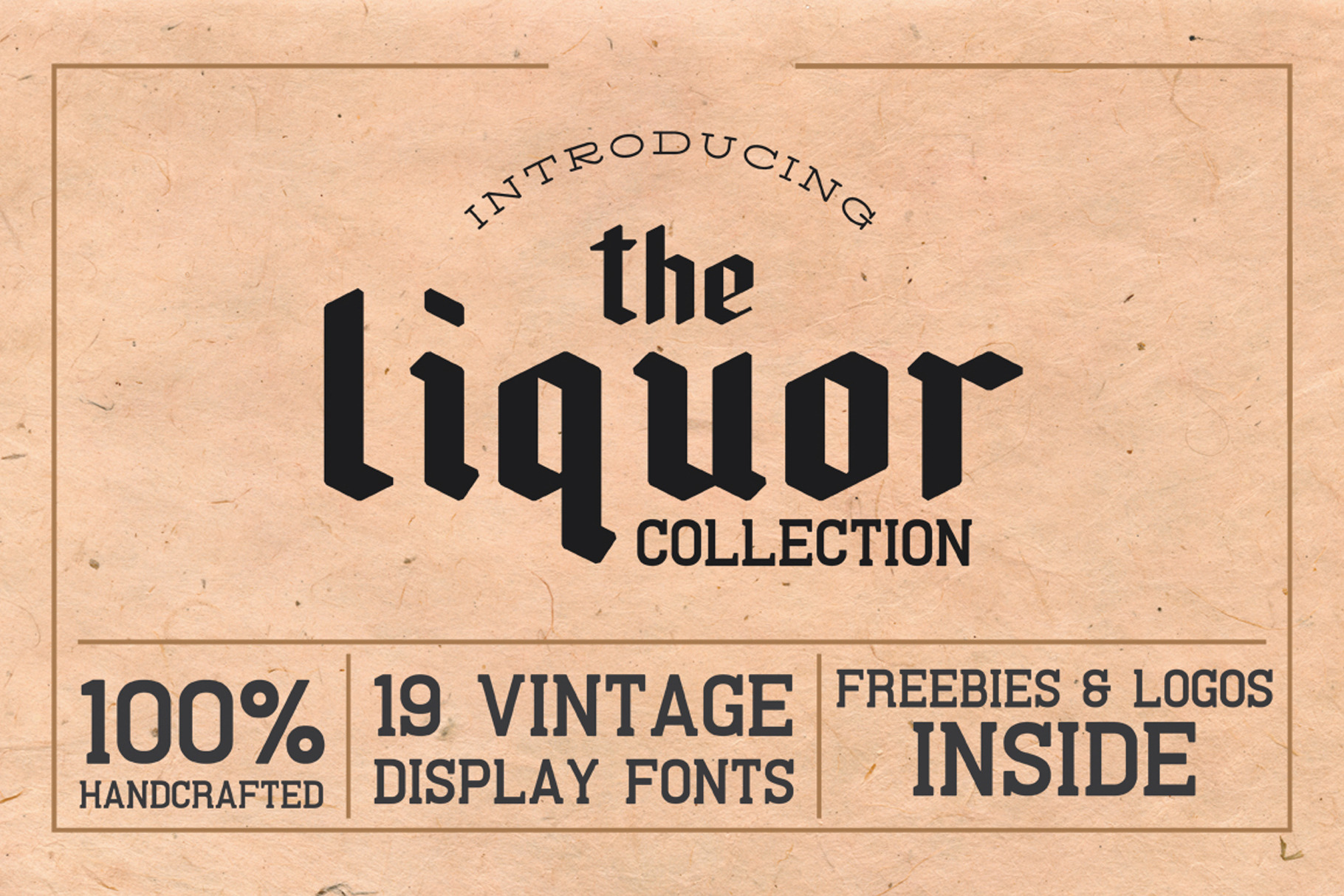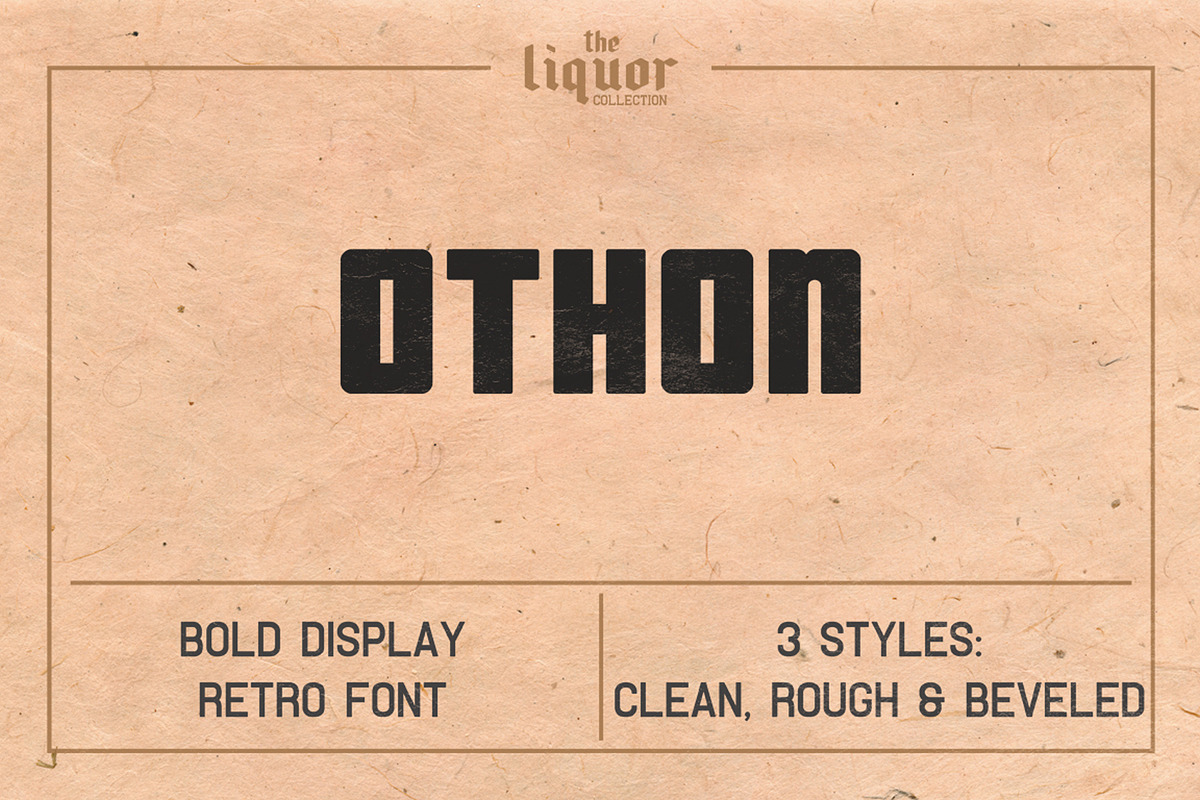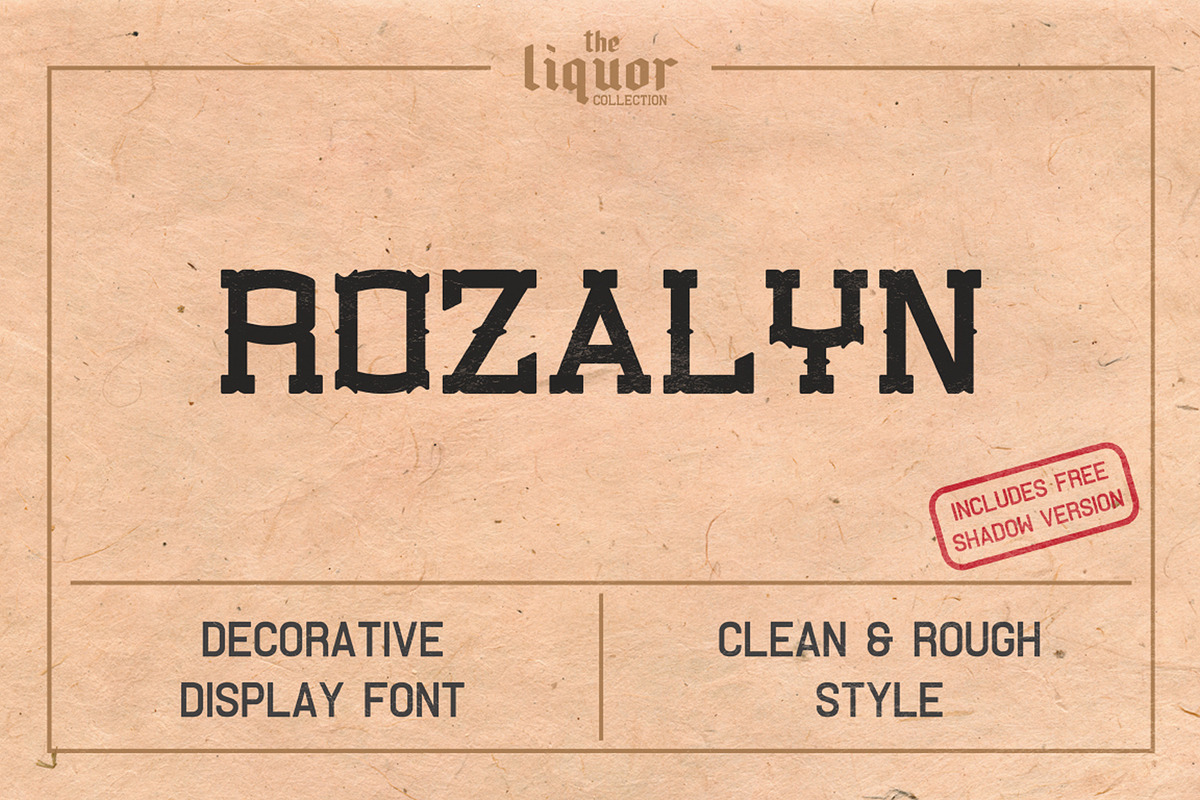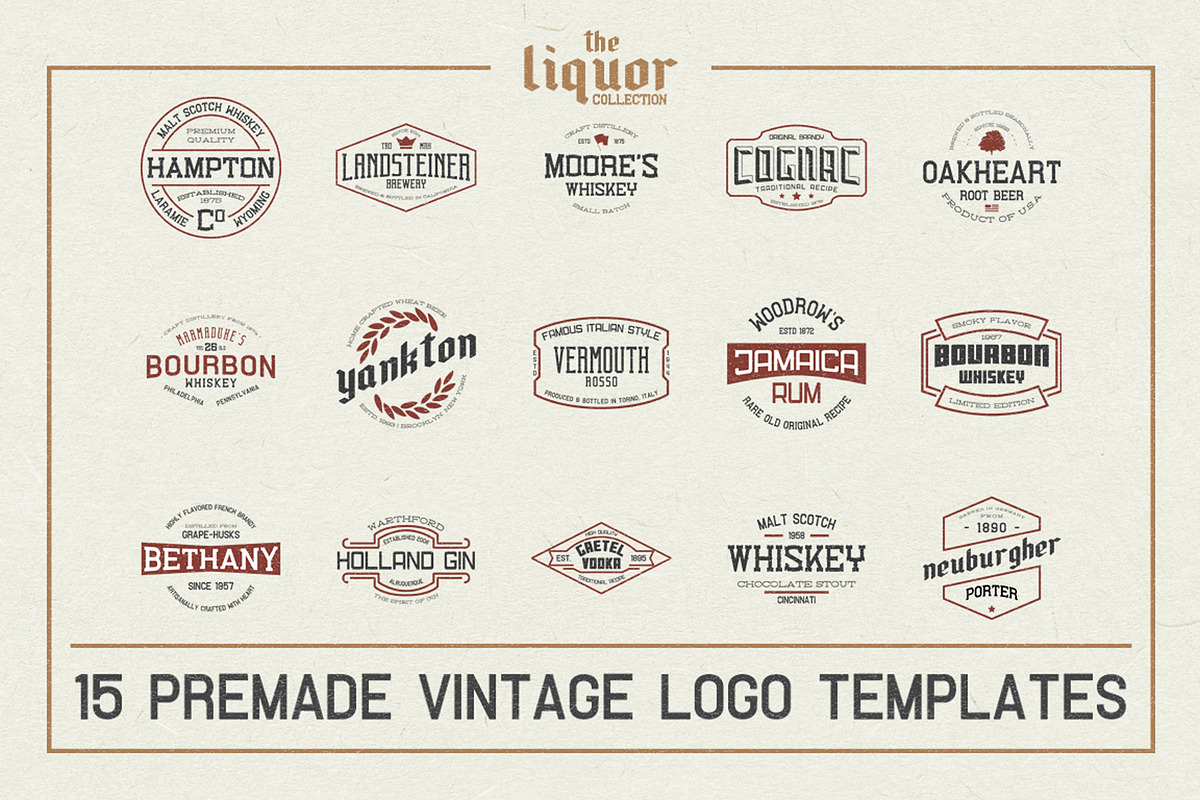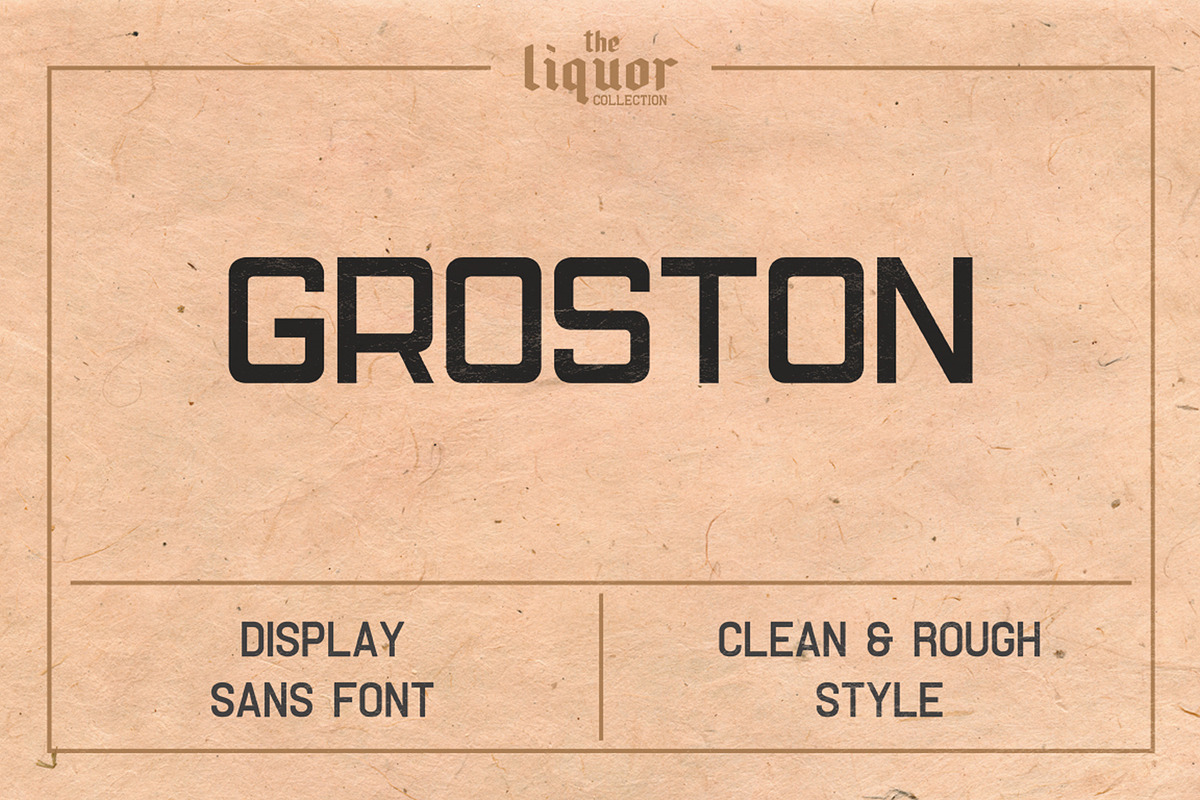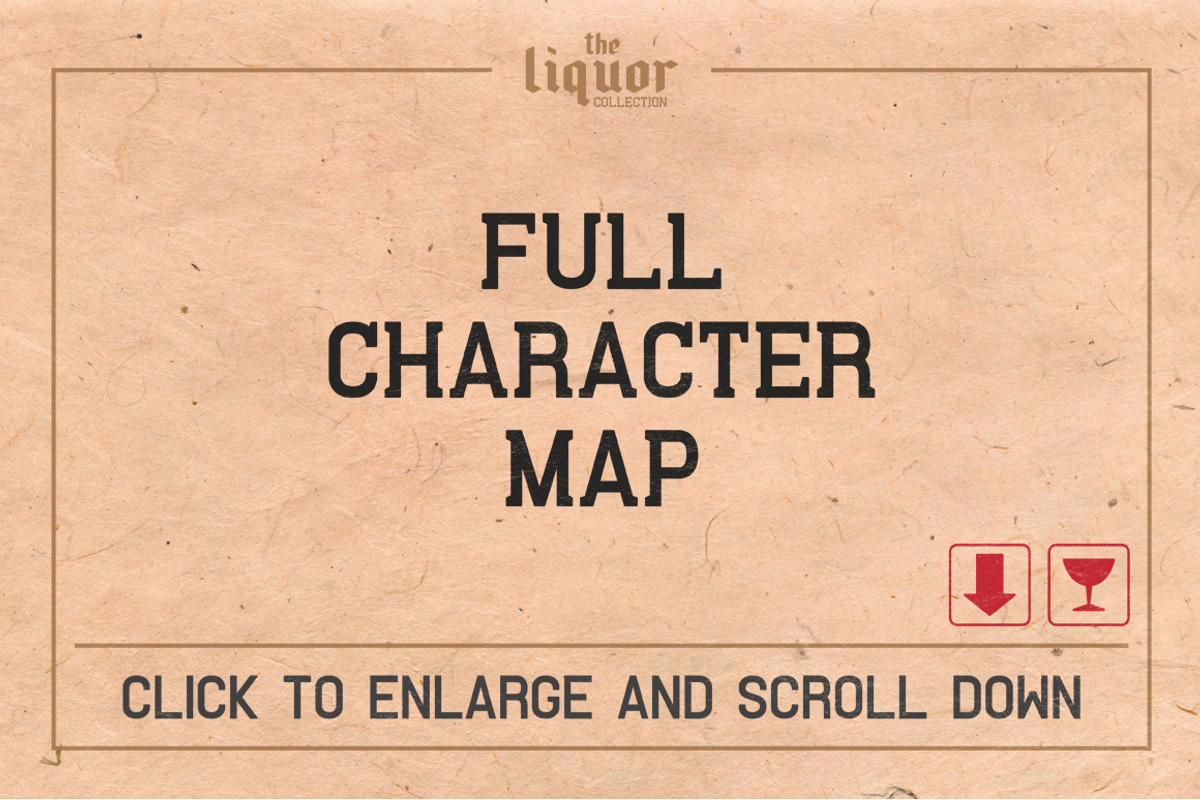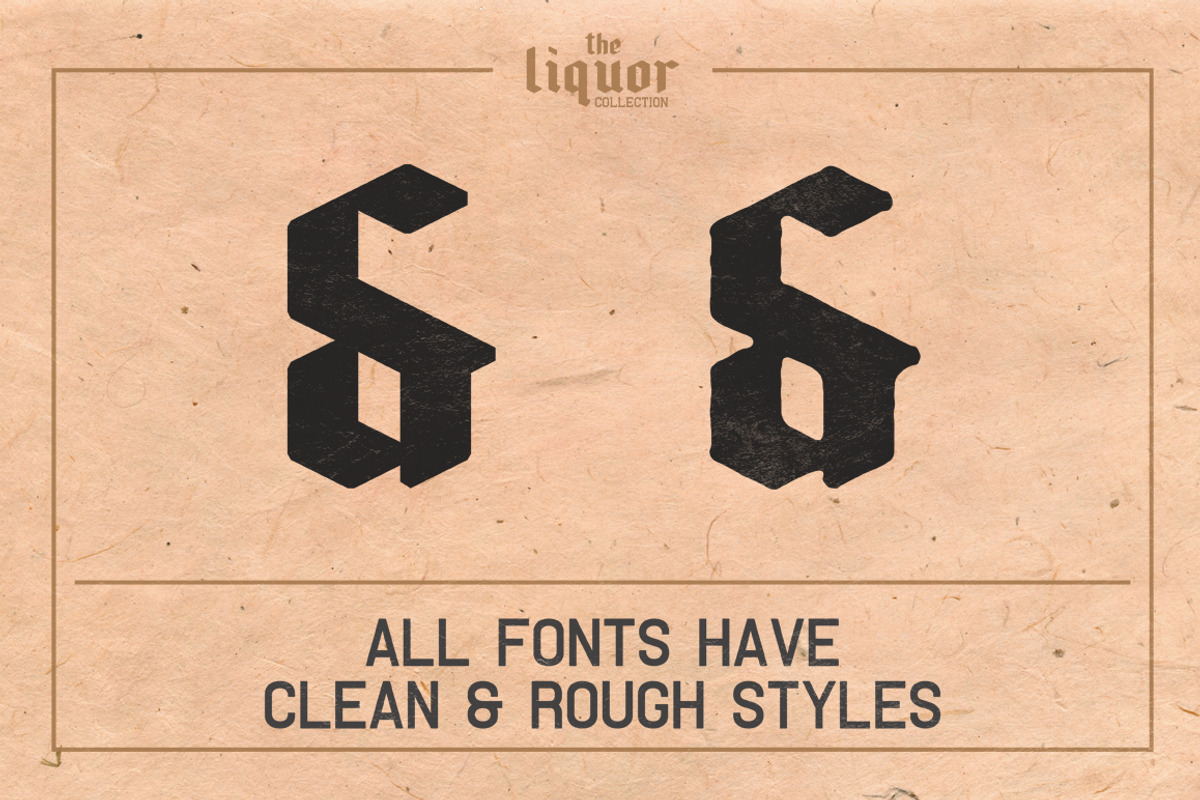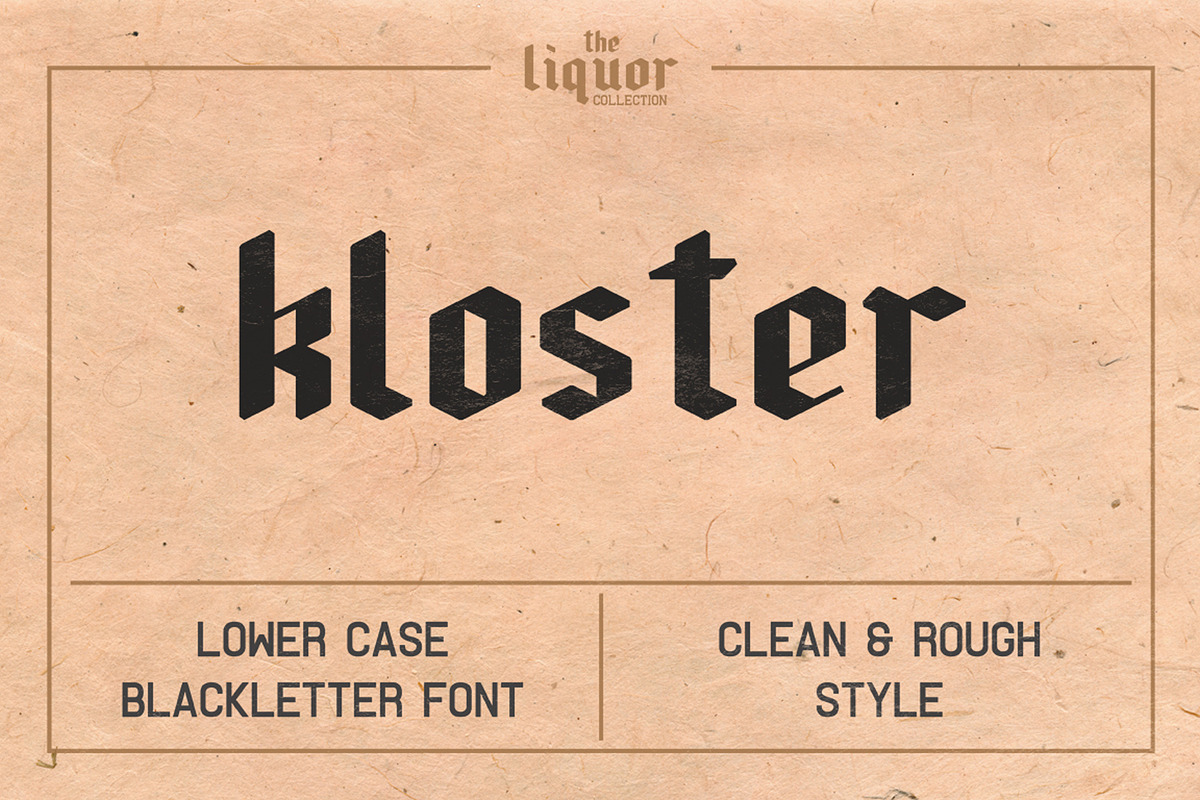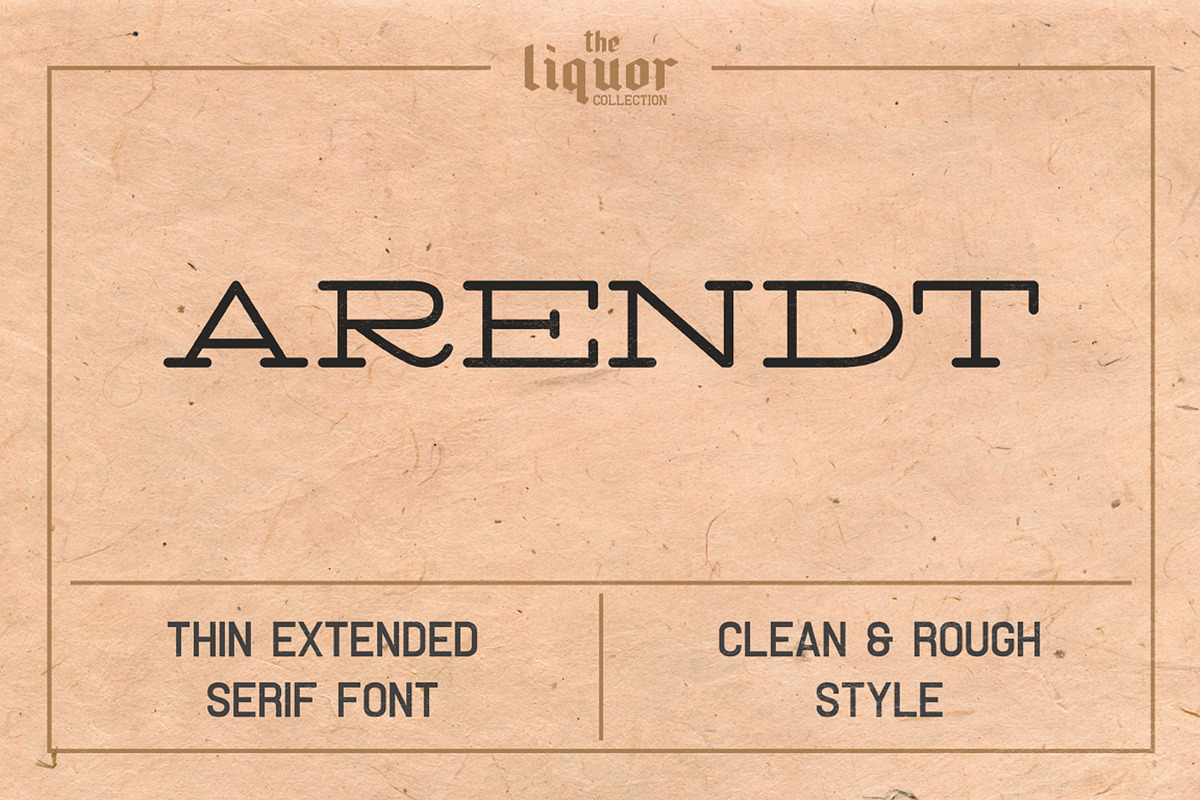
The Liquor Font Collection
The Liquor Collection - Font Bundle
Once again I spent few long weeks on research, designing and testing several fonts that would match each other. Now "The Liquor Collection" is available for sale. All fonts are inspired by retro fonts used on vintage liquor labels, posters and advertising (whiskey, wine, beer, rum, gin and more).
What does "The Liquor Collection" contain?
- Othon - A bold sans typeface (beveled, clean, rough)
Bundle exclusive fonts:
- Arendt - A thin extended serif typeface (clean, rough)
- Groston - A squared sans font (clean, rough)
- Kloster - A lower case blackletter typeface (clean, rough)
- Theobald - A vintage condensed display font (clean, rough)
Rozalyn Shadow contains only basic letters, numerics and punctuation.
15 Vintage Logo Templates that show how fonts can be used. Logos are editable for Adobe Illustrator (Ai and EPS files, CS6 and CS1)
Fonts are not textured. Textured designs are prepared for screenshots only!